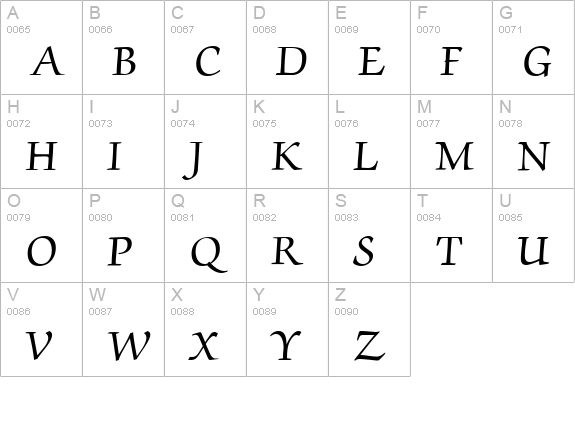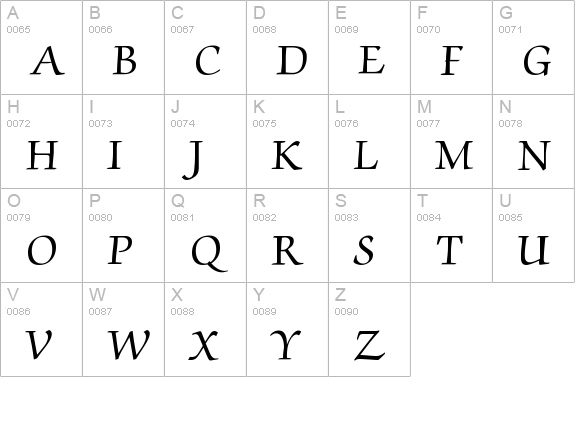
ZabriskieScriptSmc-Bold Font Details
ZabriskieScriptSmc-Bold is a strong, high-contrast variant in the ZabriskieScriptSmc typeface family \xE2\x80\x94 well suited to headlines, attention-grabbing titles, and strong calls-to-action.
ZabriskieScriptSmc-Bold is a stylish and elegant font that exudes sophistication and charm. With its bold and distinctive letterforms, this typeface is perfect for creating eye-catching headlines, invitations, and branding materials. The fluid and graceful strokes of ZabriskieScriptSmc-Bold add a touch of flair to any design project. Best of all, ZabriskieScriptSmc-Bold is available for free download at FontsMarket.com. Whether you're a professional designer or a hobbyist looking to add a touch of elegance to your projects, this font is sure to impress. Don't miss out on the opportunity to enhance your designs with the beauty of ZabriskieScriptSmc-Bold - download it today and let your creativity shine!